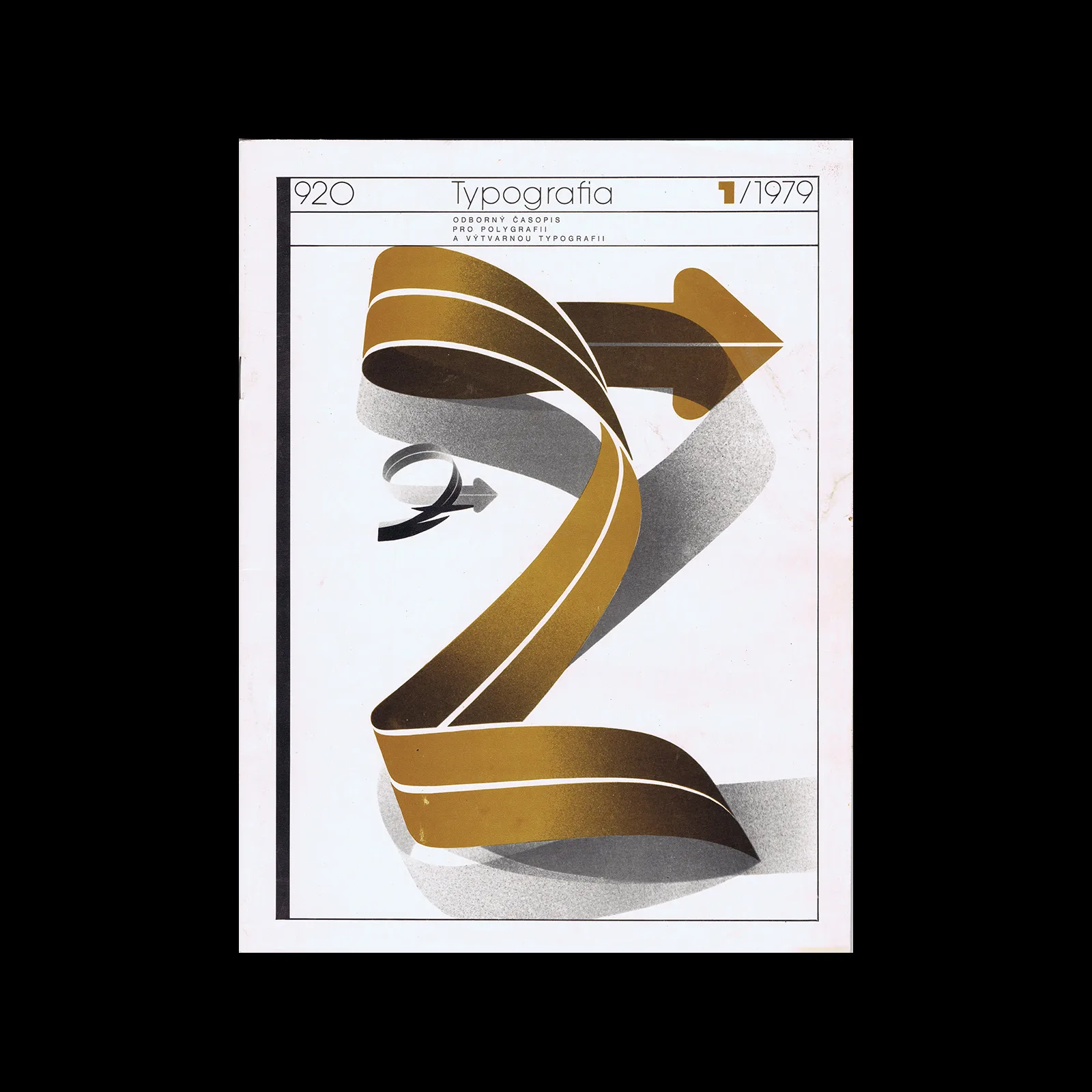
Typografia, ročník 82, 01, 1979
• Designer/s Rostislav Vaněk
Rostislav Vaněk
Rostislav Vaněk (born 1945) is a Czech graphic designer whose work spans posters, book design, exhibition graphics, and audiovisual communication. Educated in Prague, he began his career assisting at the School of Arts before moving into publishing, contributing to the visual output of Czechoslovak cultural institutions. His work is rooted in modernist principles, combining geometric structure with experimental typography and tonal imagery, particularly in his exhibition posters, which balance abstraction with clarity. Exhibited internationally, including at the Leipzig Book Fair and poster biennials in Brno and Warsaw, Vaněk represents a generation of Eastern European designers who developed distinct and innovative approaches within state-supported systems. Explore related designers including Oldřich Hlavsa and Bohuslav Blažej. See also Czech graphic design history and 1960s graphic design history.
Typografia
Typografia is a Czech typography and printing journal featuring technical articles and historic design. The magazine was first released in 1888 in Prague.
Typografia, ročník 82, 01, 1979. Cover and magazine design by Rostislav Vaněk